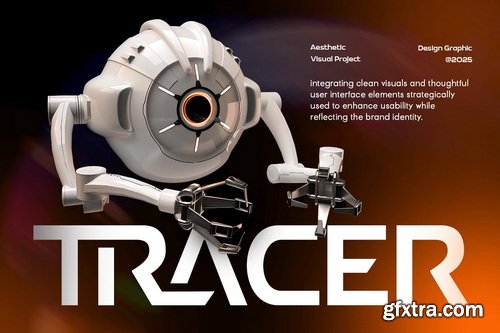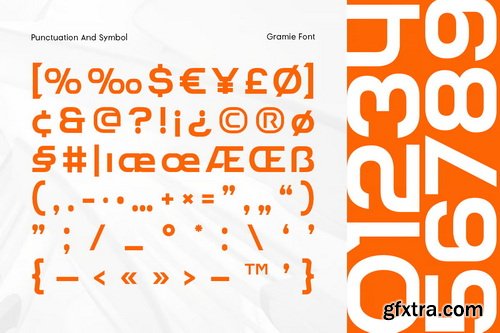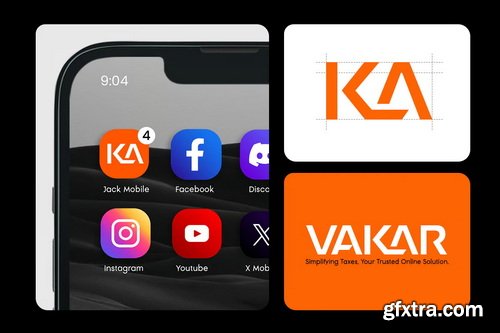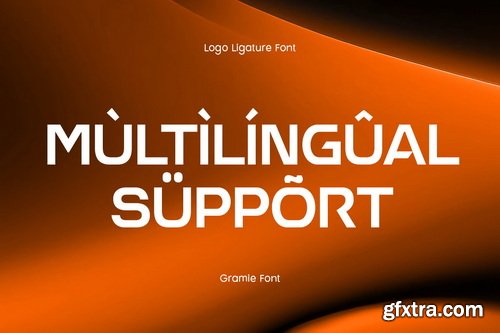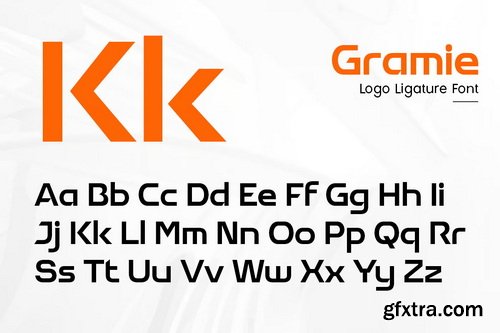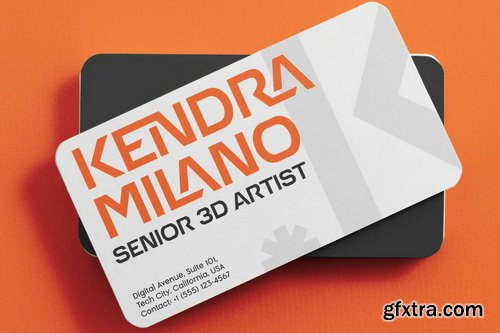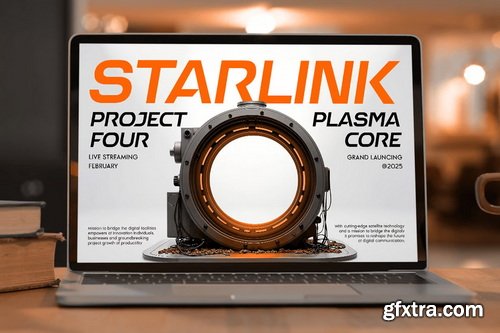
GRAMIE Font
Designed for tech startups, futuristic logos, gaming brands, and cyberpunk visuals, GRAMIE features seamless ligatures and dynamic letterforms, creating a bold and modern typography experience. Whether you're working on a high-tech branding project, an esports logo, or a digital interface, this font ensures a clean, futuristic, and high-impact look.